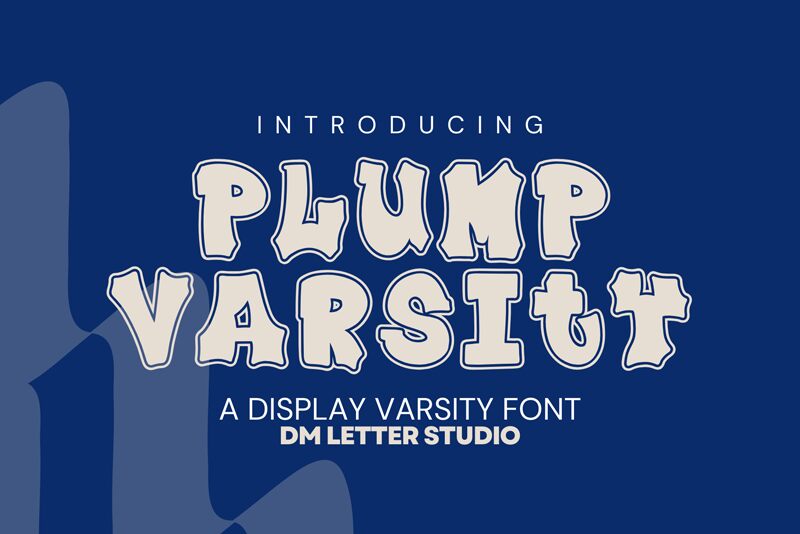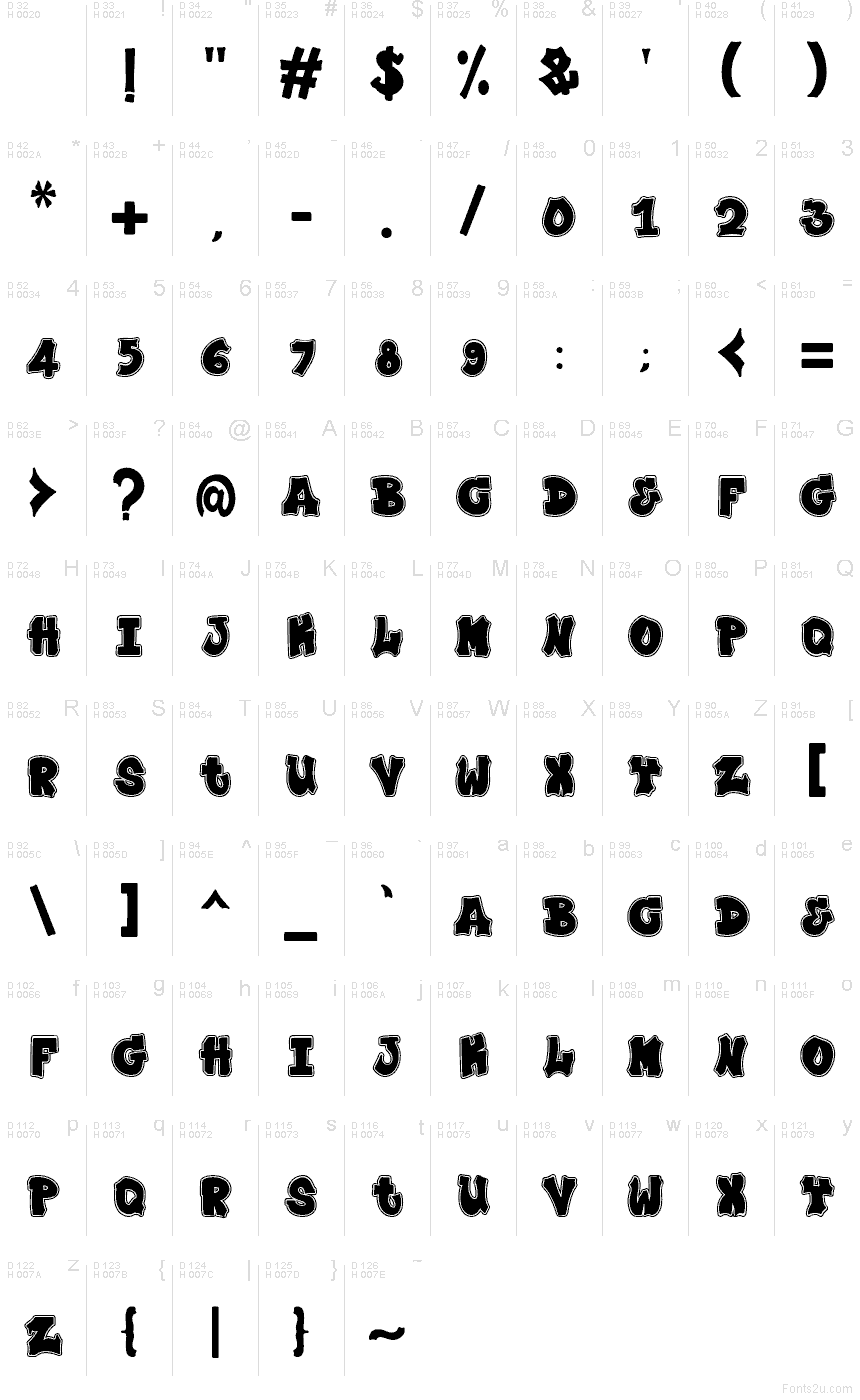
Plump Varsity
Plump Varsity font by DM Letter Studio - Dimas Prasetyo is a free display typeface that turns every word into a big, bouncy mascot. The letters look puffed-up and outlined, like stitched patches on a well-worn jacket, with chunky curves and tight spacing that feel loud, friendly, and a little rowdy. It has that gym-banner energy, but with a playful, almost cartoonish twist that makes it as fun as it is bold.
Using Plump Varsity, you can shout across posters, team merch, spirit wear, event badges, kids’ party invites, social graphics, and bold logo wordmarks without losing warmth or charm. This free font excels at short phrases and big titles, where its thick outlines and blobby shapes can really fill the space. For a clean, readable combo, pair Plump Varsity with a simple sans serif for body text and let the Plump family handle the headlines.